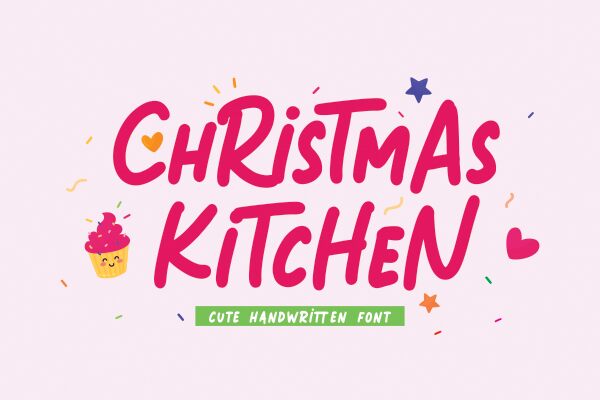
Mozatypestd's ChRisTmAs KiTcHeN is a light, cute handwritten font perfect for holiday projects, cards and decorations. It can also be used for any creative project needing a touch of cheerfulness.